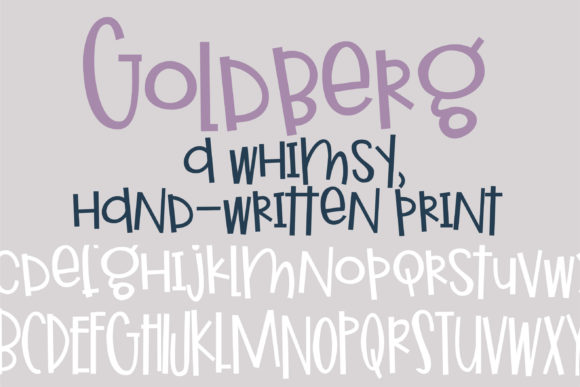
Welcome to the world of PN Goldberg, a display font that exudes youthful exuberance and infectious charm. Its informal style and casual vibe make it an instant favorite for designers seeking a font that speaks to the carefree spirit of creativity.
With PN Goldberg, your designs will burst onto the scene with a contagious energy that grabs attention and leaves a lasting impression. Its bouncy strokes and playful curves dance across the page, creating a captivating visual rhythm that draws readers into your content. Whether you're crafting logos, posters, website headers, or social media graphics, PN Goldberg is your secret weapon for leaving an indelible mark.
Unleash your imagination and dive into a world where words come alive with PN Goldberg. Its playful nature makes it a perfect fit for projects that demand a touch of whimsy and lightheartedness. From children's books and playful branding to quirky invitations and eye-catching packaging, PN Goldberg transforms ordinary designs into extraordinary expressions of joy.
Beyond its aesthetic appeal, PN Goldberg is a versatile performer, equally at home in both web and print environments. Its crisp lines and well-defined edges ensure that your designs maintain their integrity across various platforms, delivering a seamless and consistent user experience. Whether you're targeting a global audience through your website or creating tangible products that demand sharp and legible typography, PN Goldberg delivers flawlessly.
Join the creative revolution and make PN Goldberg your go-to font for projects that demand a burst of energy and a dash of personality. Its youthful spirit and bouncy charm will breathe new life into your designs, leaving your audience captivated and eager for more. Discover the PN Goldberg difference today and unlock a world of creative possibilities!